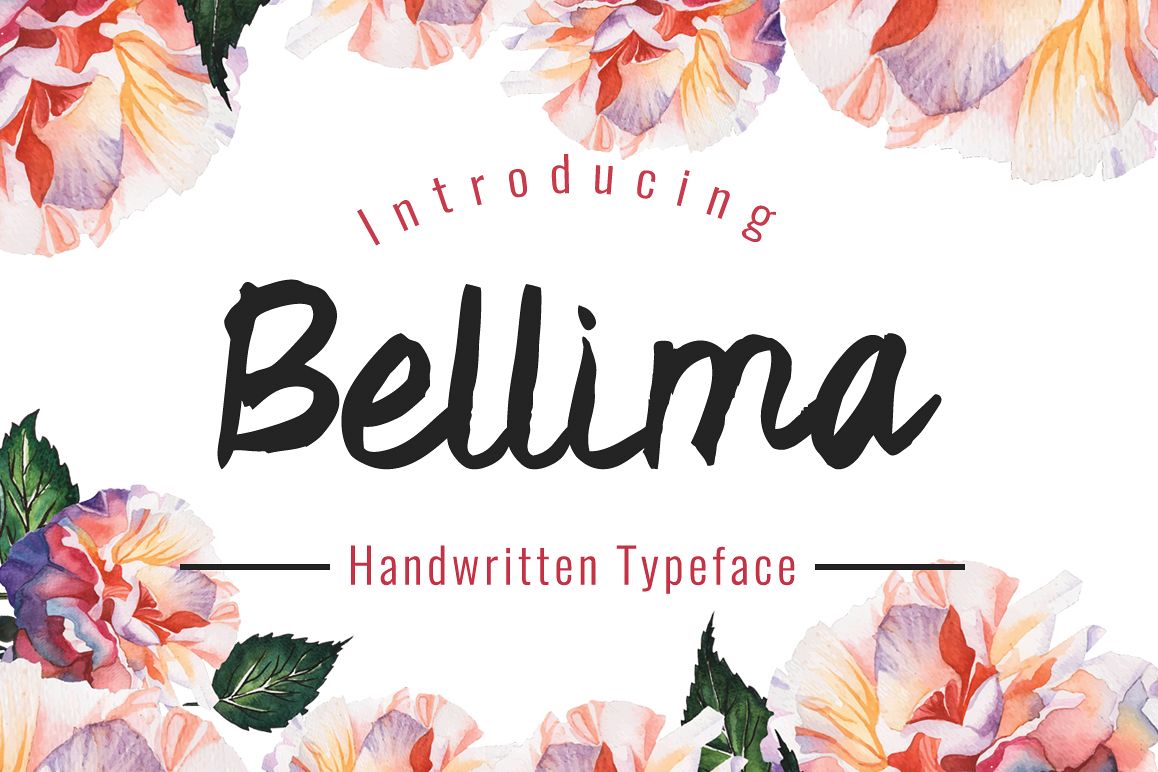
Introducing Bellima!Bellima is a fresh handwritten font. Bellima is perfectly suited to stationery, logos, t-shirt, paper, print design, website header, photo frame, flyer, music cover, poster, image slider and much more.
Features:- Uppercase
- Numerals